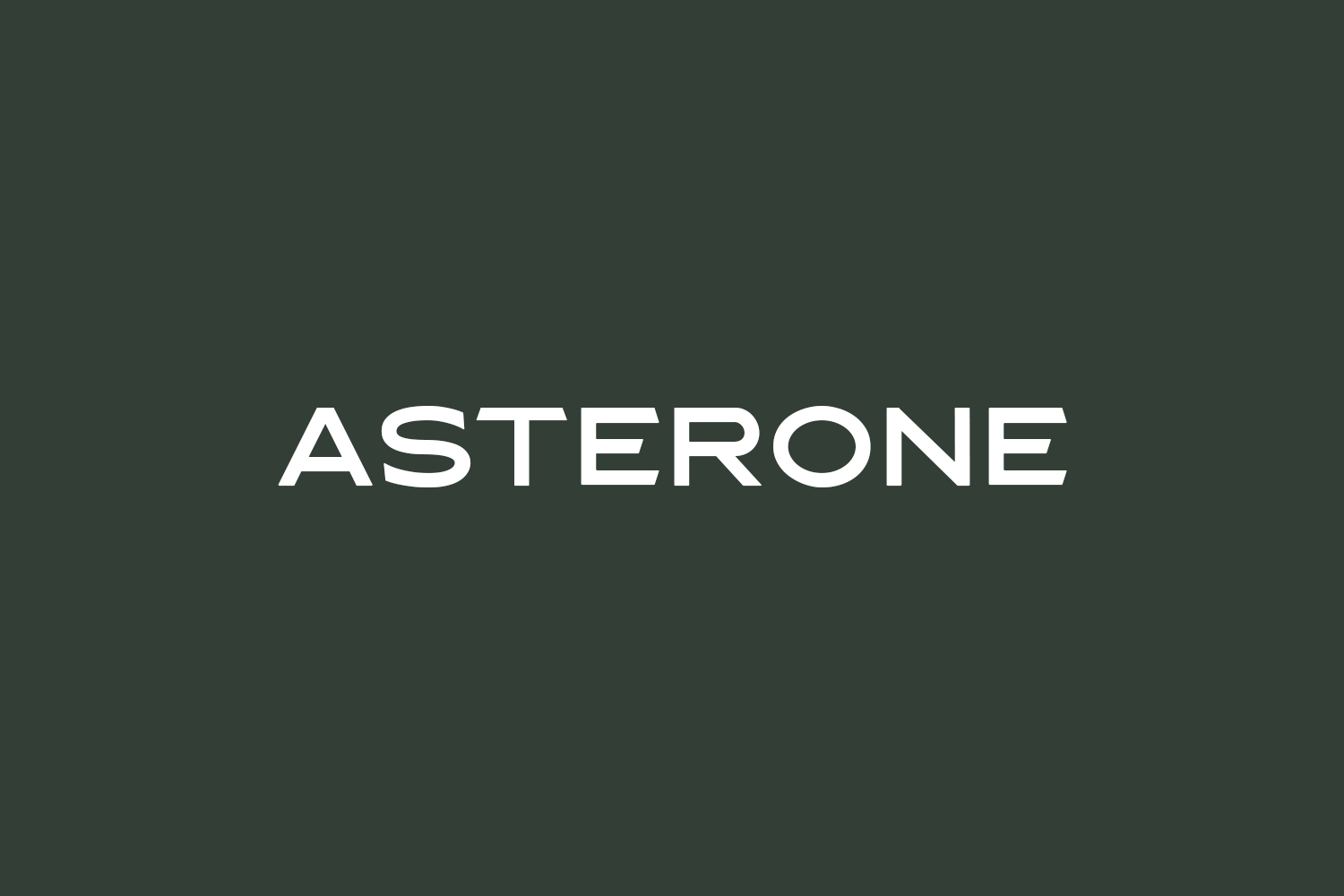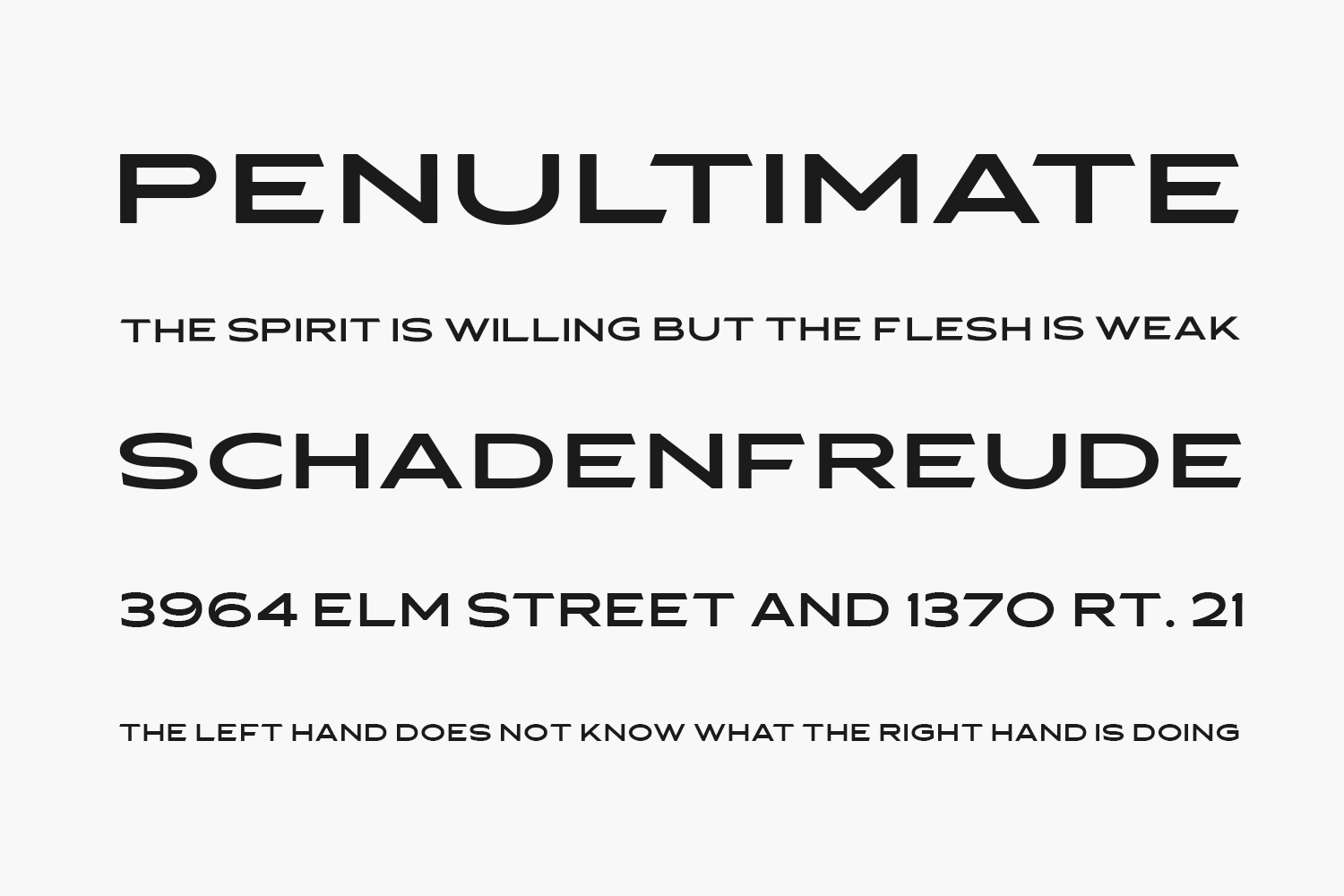
Asterone Free Font is a modern and clean sans serif font that will add a sophisticated feel to any design project. Asterone Free Font was designed by Letterhend Studio and is free for personal use only. Please purchase the full version for commercial use.
Designed by Letterhend Studio